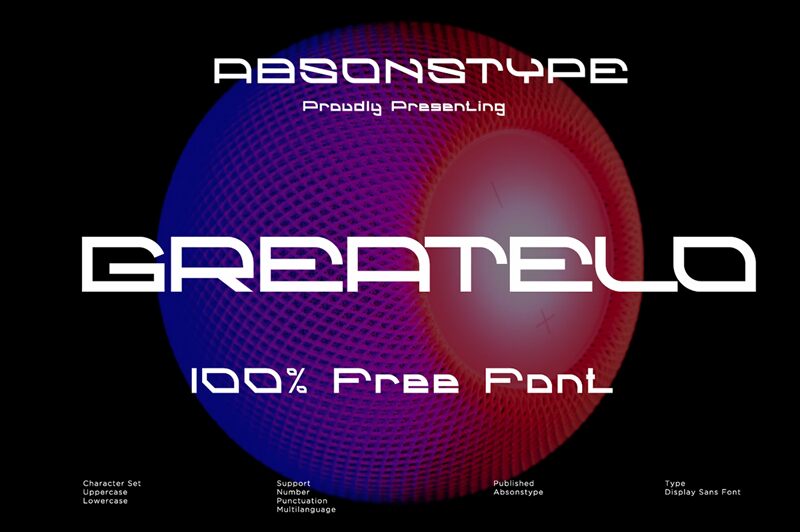
Greatelo, a captivating display font crafted by Absonstype Studio, exudes a striking techno-inspired aesthetic. With its expanded width and bold, geometric letterforms, this font commands attention, evoking a sense of futuristic elegance. The intricate balance of sharp angles and smooth curves creates a visually striking interplay, making Greatelo an alluring choice for projects seeking to convey a sense of technological sophistication and modern flair.
Greatelo's versatility shines through, making it a versatile choice for a wide range of design applications, from bold headlines and eye-catching logos to impactful poster designs and digital interfaces. Its expanded width and high-impact appearance lend themselves particularly well to attention-grabbing display text, ensuring your message stands out in any setting.